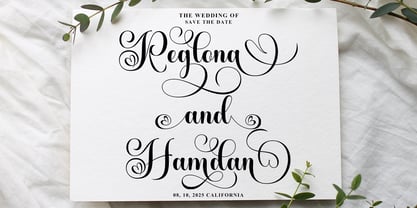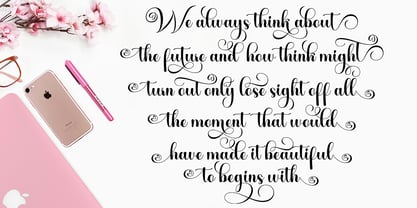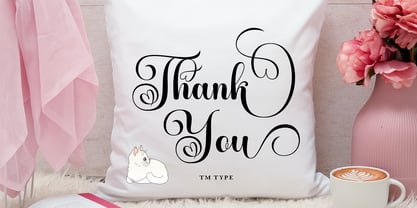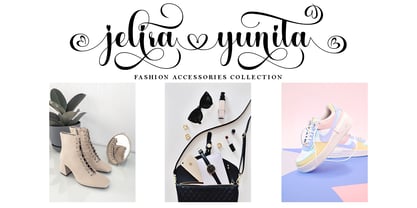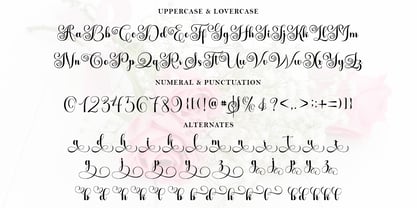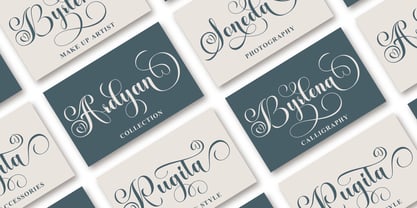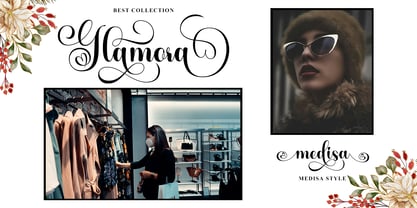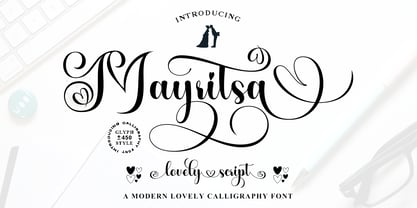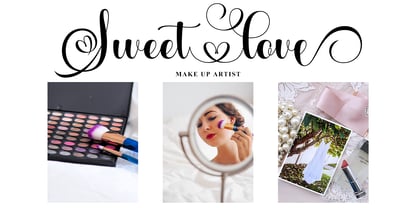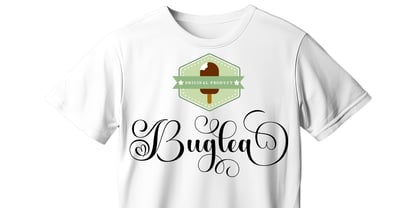
Mayritsa
The Mayritsa Font Family was designed by Teuku Bustami and published by TM Type. Mayritsa contains 1 styles. More about this family
Introducing Mayritsa, a calligraphy script font that exudes timeless elegance and sophistication. It’s the allure of Mayritsa that captivates the attention—a seamless blend of sleekness and femininity, infused with a touch of glamour. Mayritsa simple design and legible letter connections make it an irresistibly easy-to-read font. Adorned with a wealth of stylistic variations for some letters, this font offers creative flexibility.
Exuding the charm of the bygone era, Mayritsa is perfect for a myriad of formal applications. From invitations, labels, and restaurant menus to logos, fashion and make-up tags. Its classic appeal extends to stationery needs, books, magazines, novels, and greeting/wedding cards. Not to mention, it’s a standout choice for packaging, labels, and advertising essentials, making a statement in every use.
The Mayritsa package comprises a complete set featuring Uppercase, Lowercase, Alternative, Ligature, Punctuation, Number with exceptional multi-lingual support.